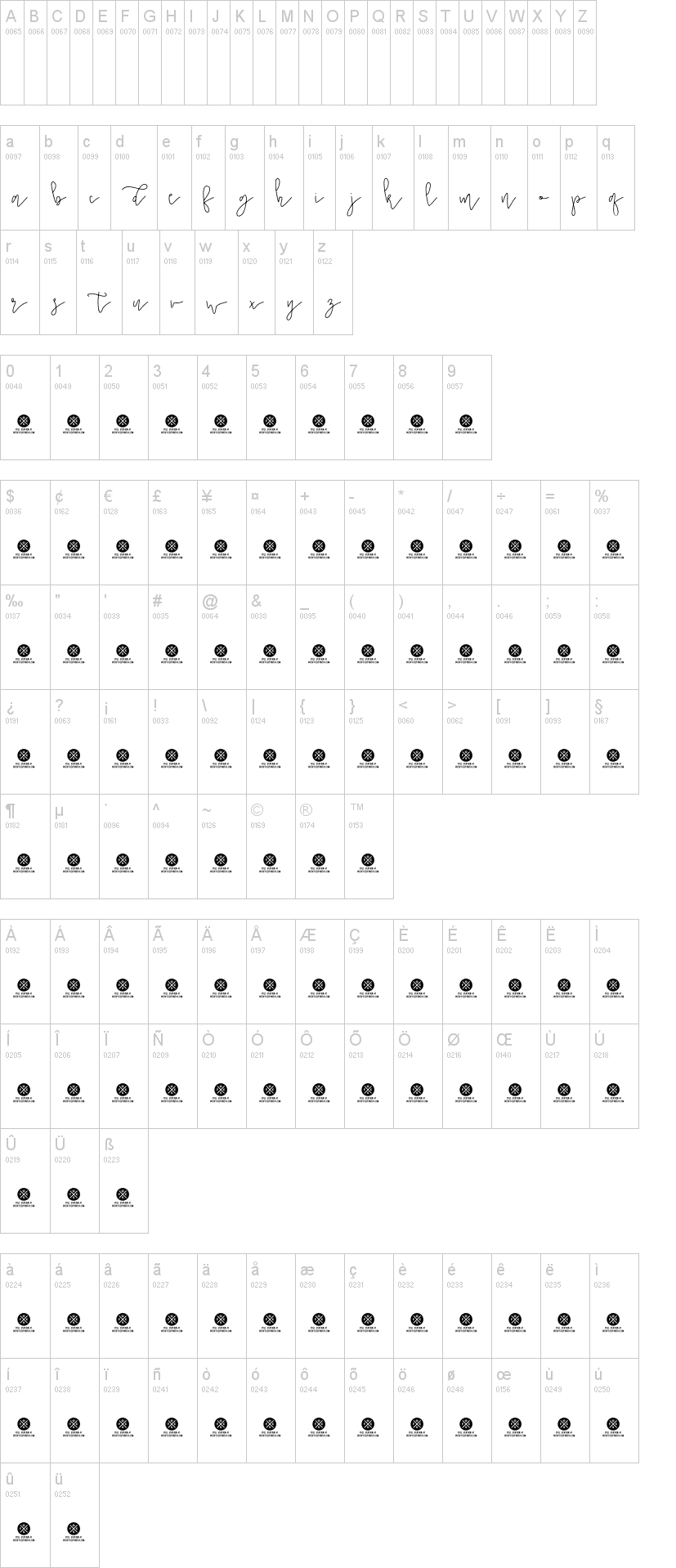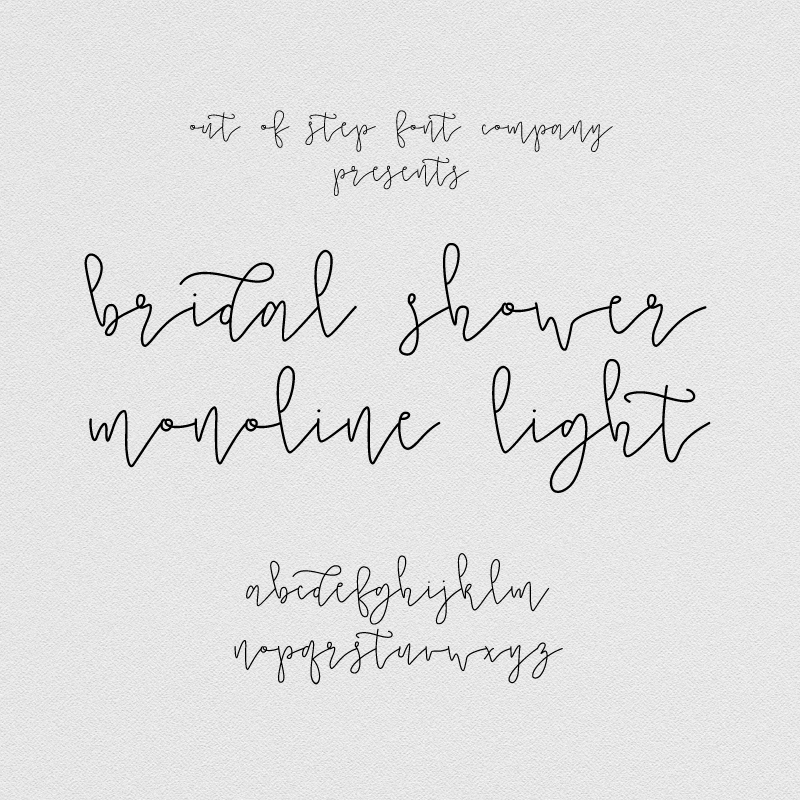
Note of the authorBridal Shower Monoline Script is a new hand-drawn modern calligraphy script based on a commission piece I created for a bridal shower. The script uses ultra-modern calligraphy styling, without requiring ligatures or alternates to solve many of the most common connected-script problems (r, s, x, z).